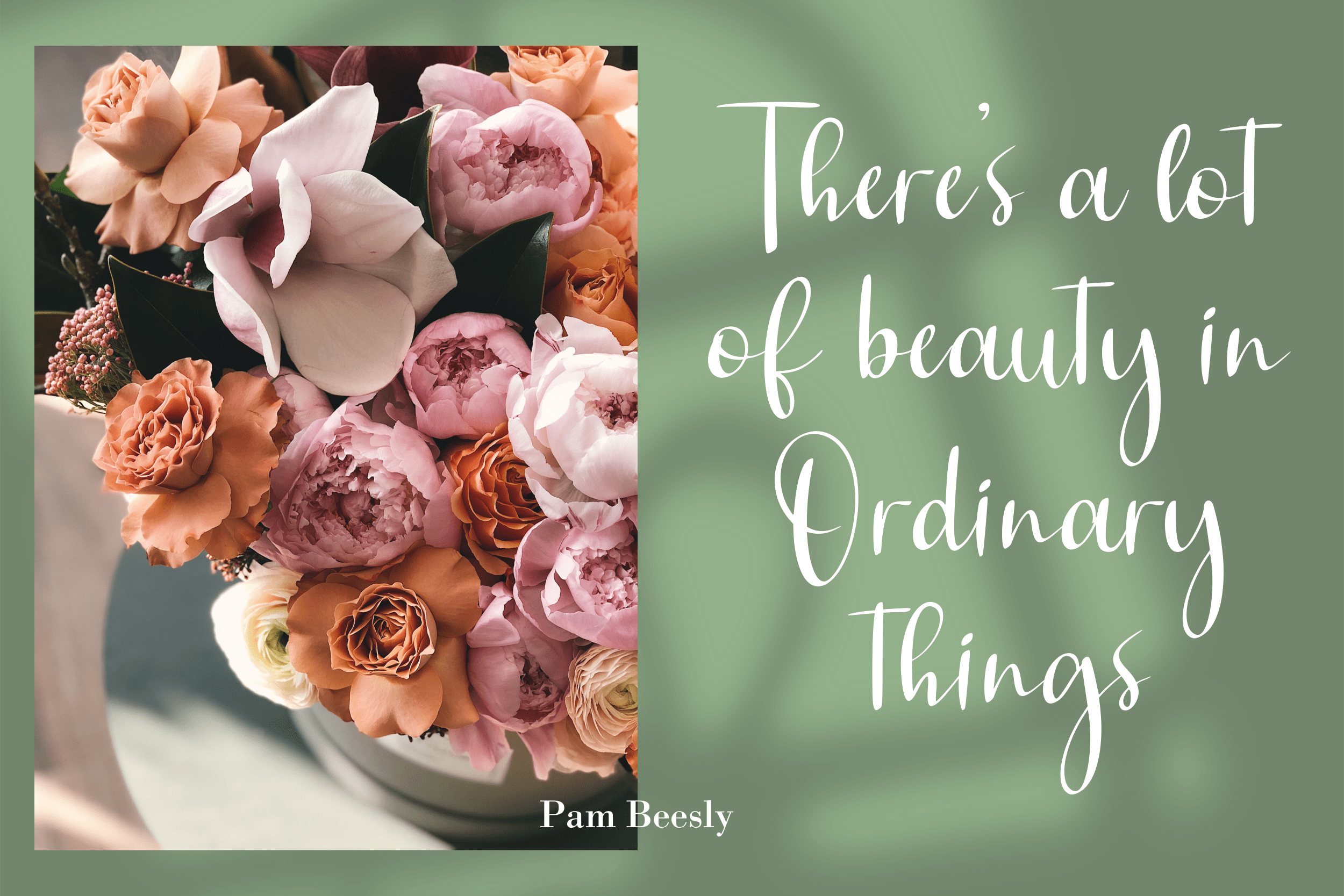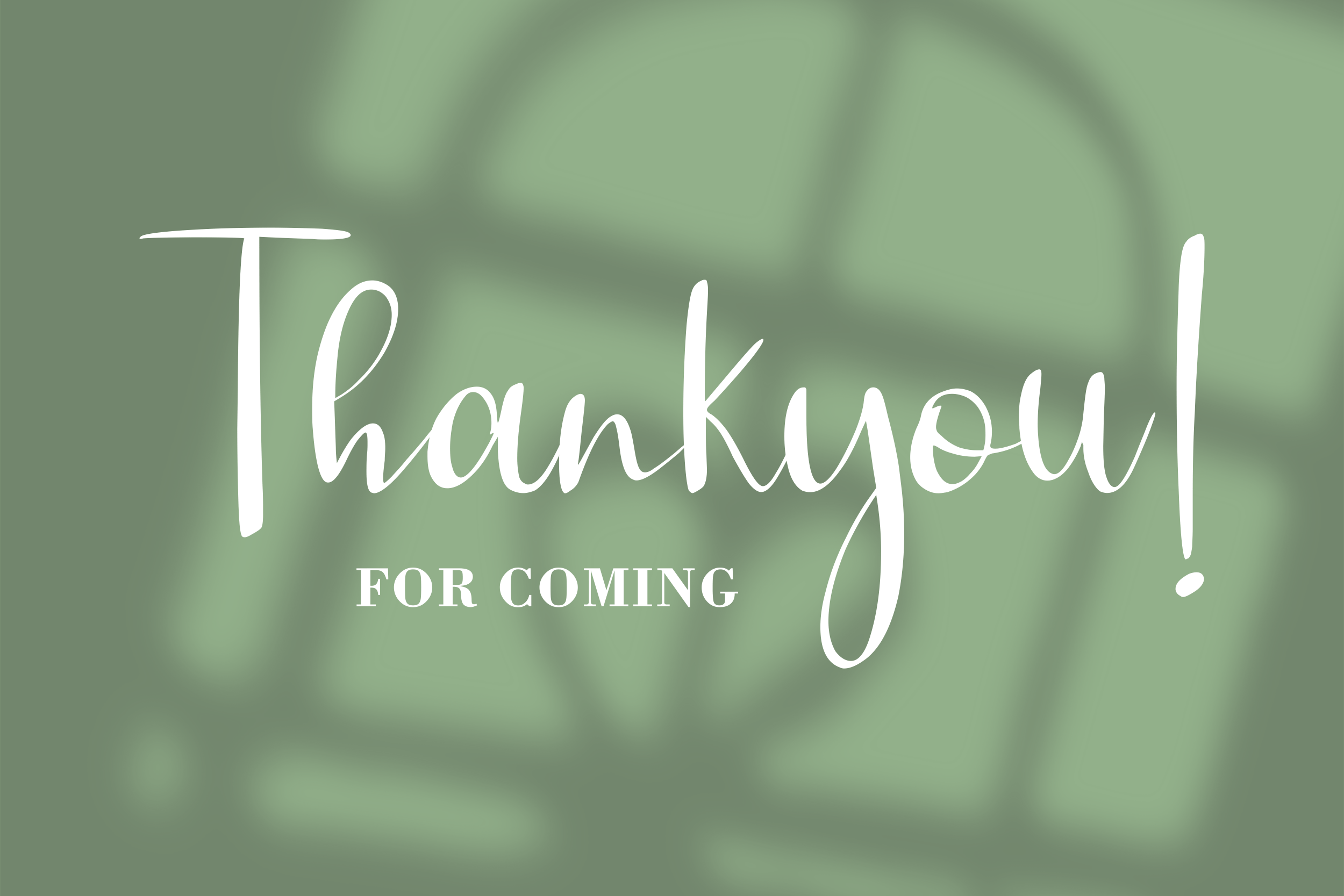
Symphonice Font
Symphonice Font is a dazzling script font. This font is neatly crafted and highly detailed. Whatever the topic, this font will be a wonderful asset to your font library, as it has the potential to enhance any creation.